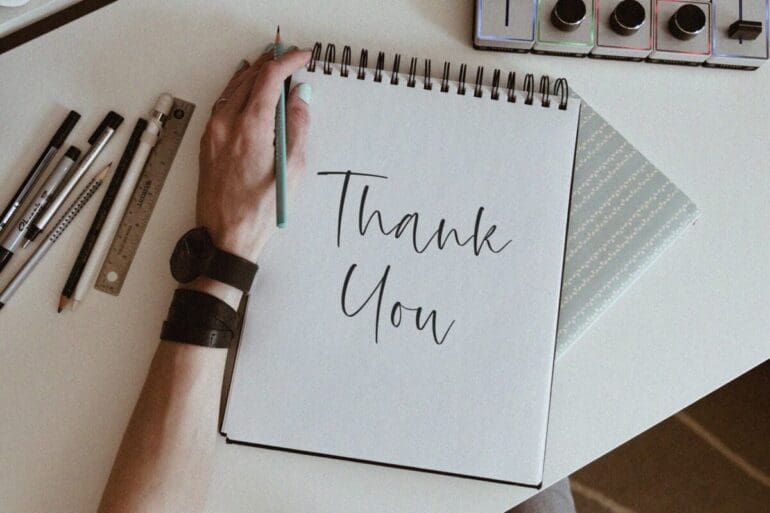
Gustavo Austin Font
Gustavo Austin is a beautiful and light handwritten font with a unique feel and a stunning impact. It will add a luxury spark to any design project that you wish to create!